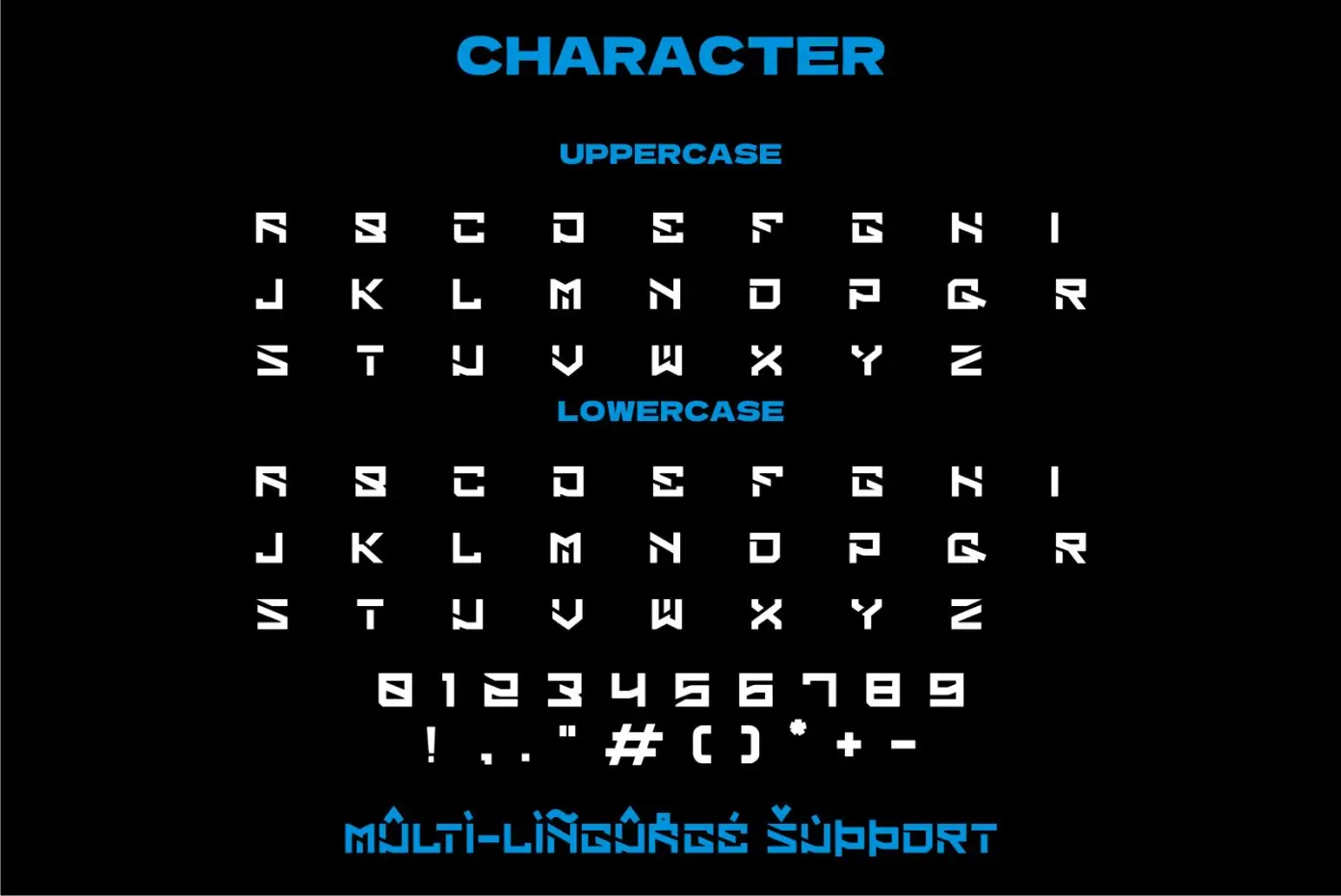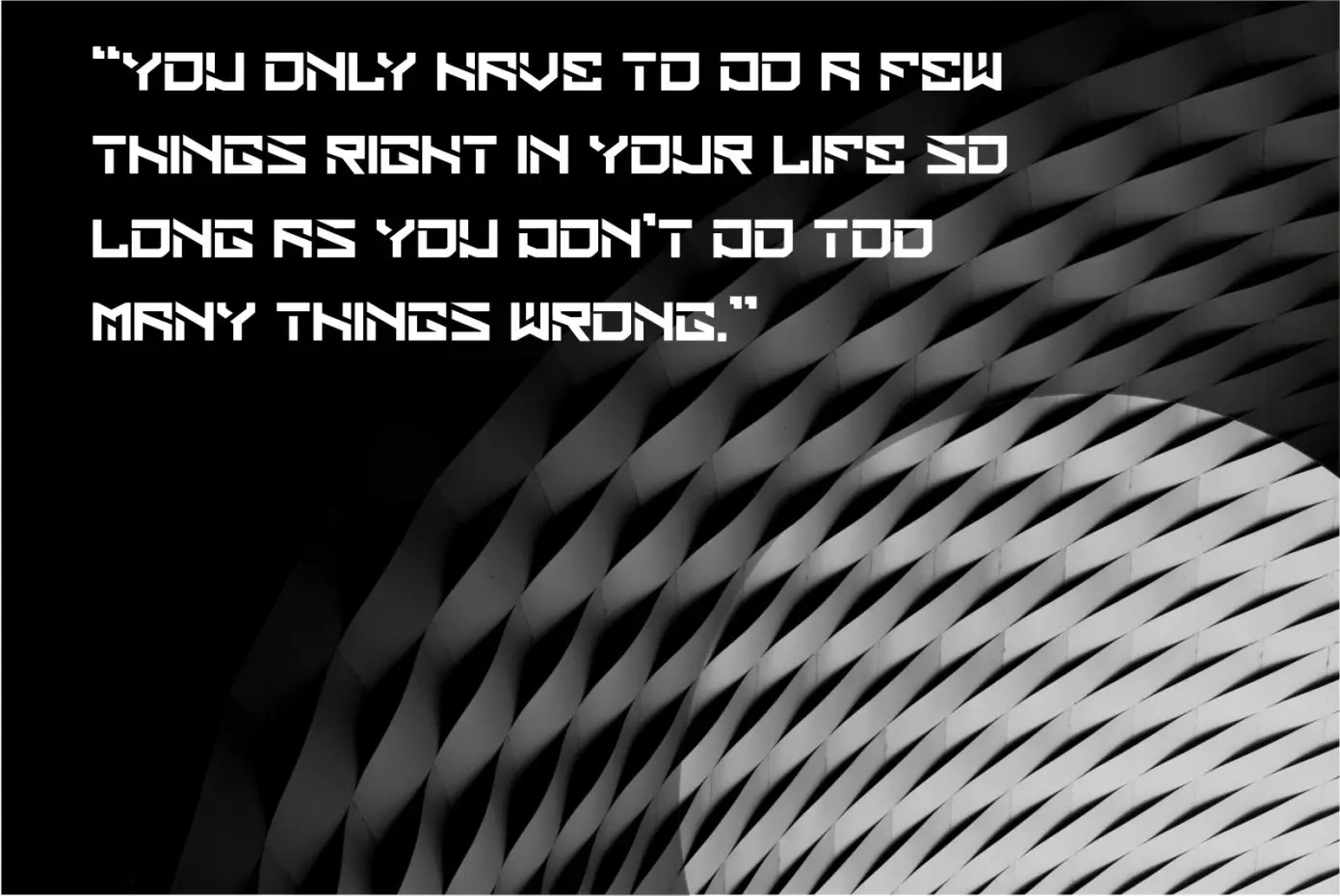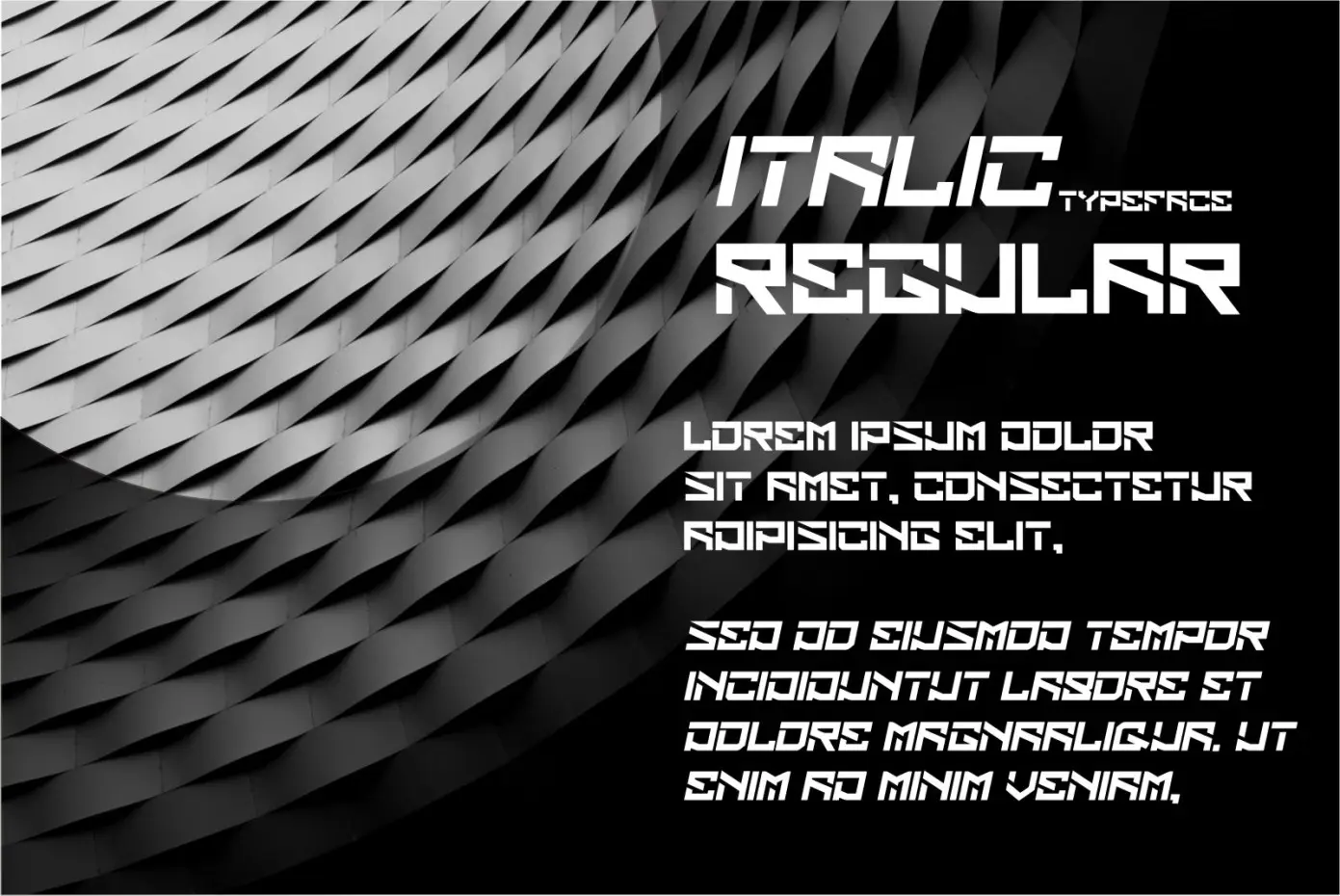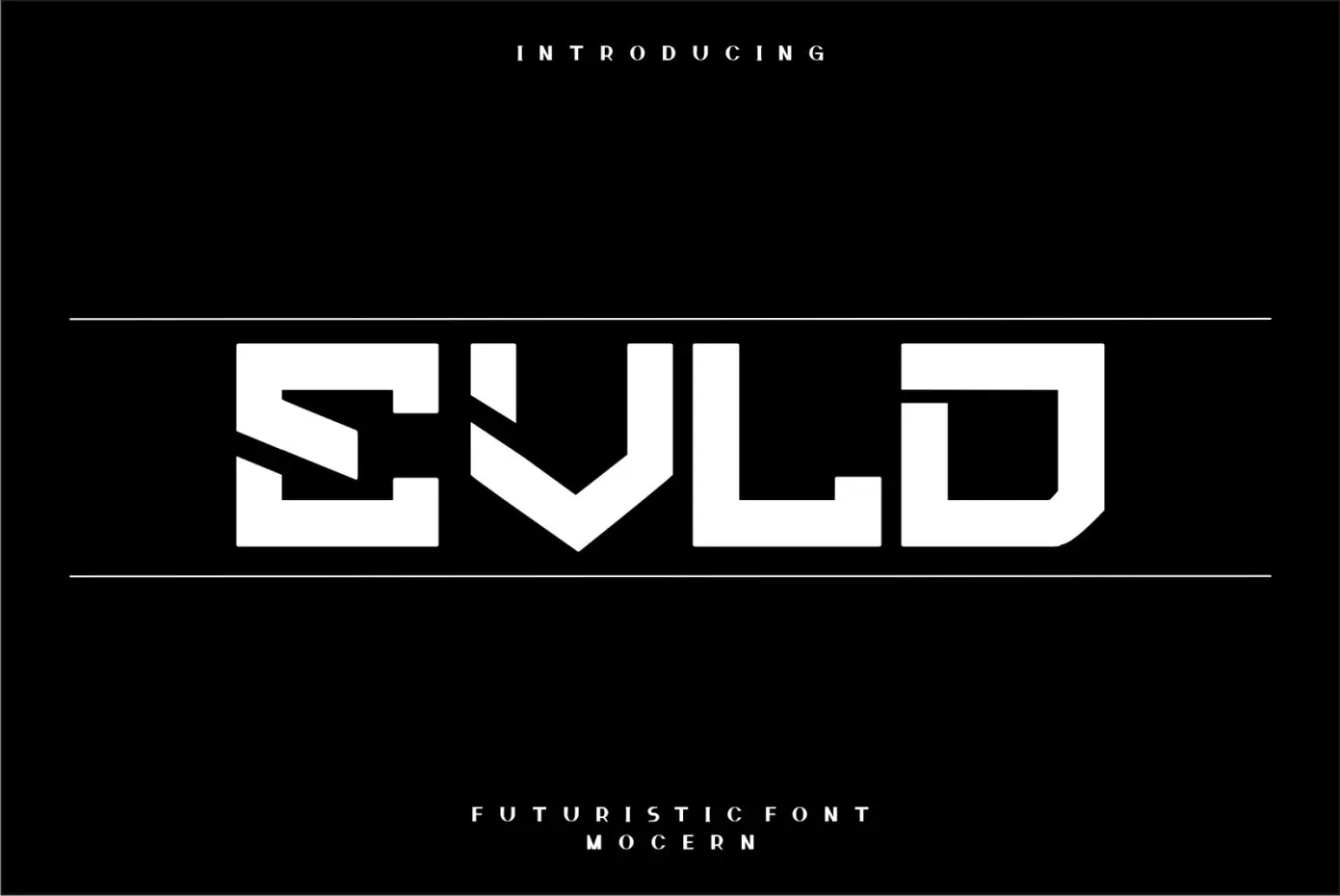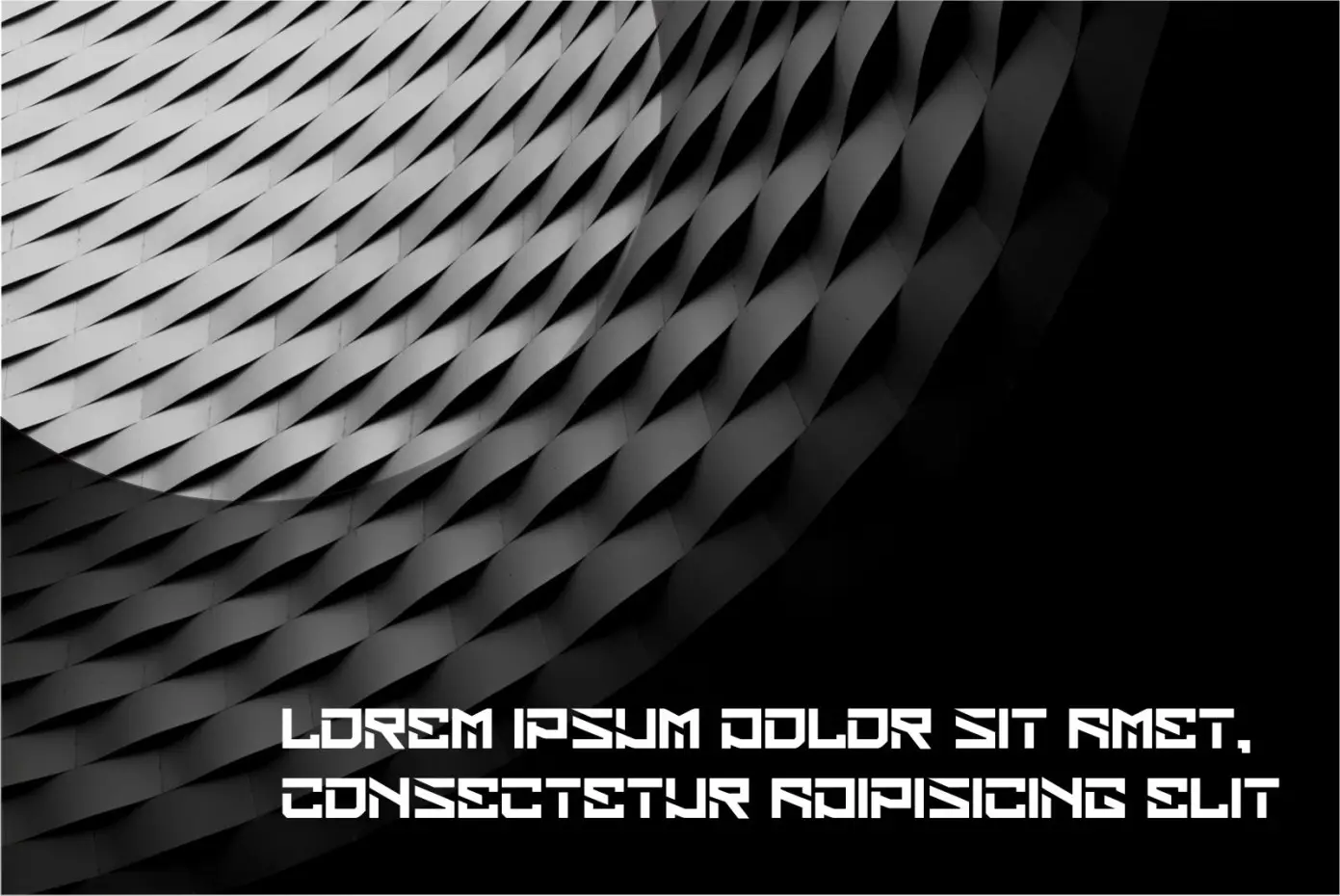
Evlo Font
The Evlo Font is a modern and versatile typeface that combines elegance with readability. Perfect for a variety of design projects, this font is ideal for branding, logos, web design, print materials, and user interfaces.
• Multiple weights for flexibility in design
• Stylish and contemporary letterforms
• Uppercase and lowercase characters
• Utilize in branding projects for a professional touch
• Incorporate into web design for a clean and modern look
• Use in print materials for eye-catching headlines and body text